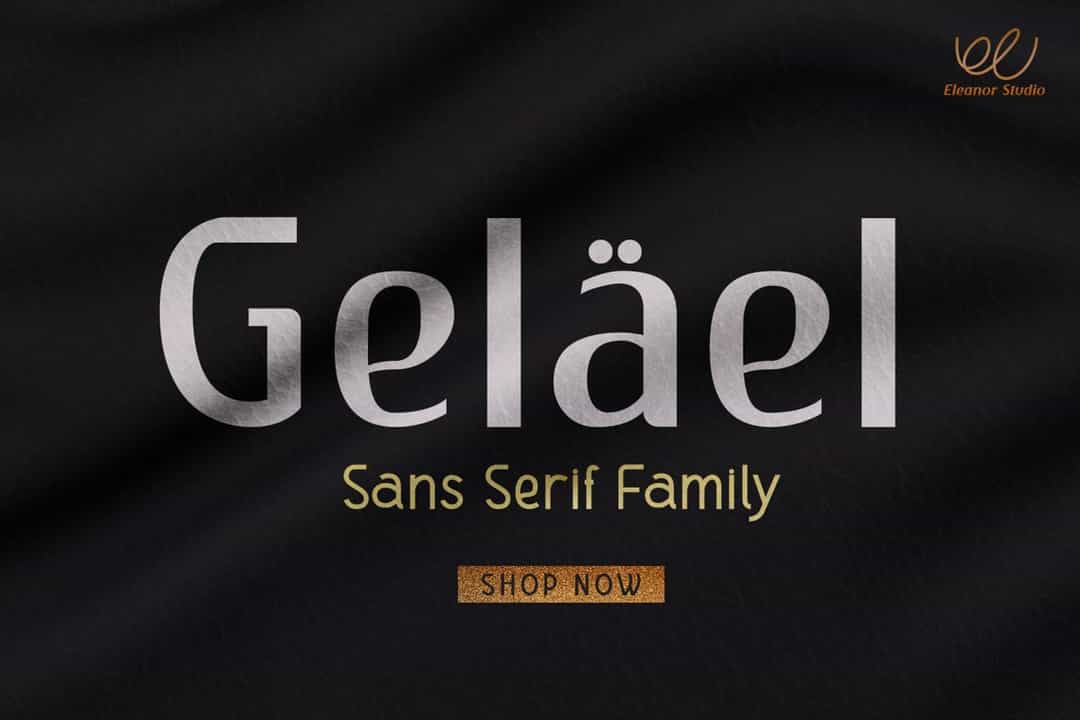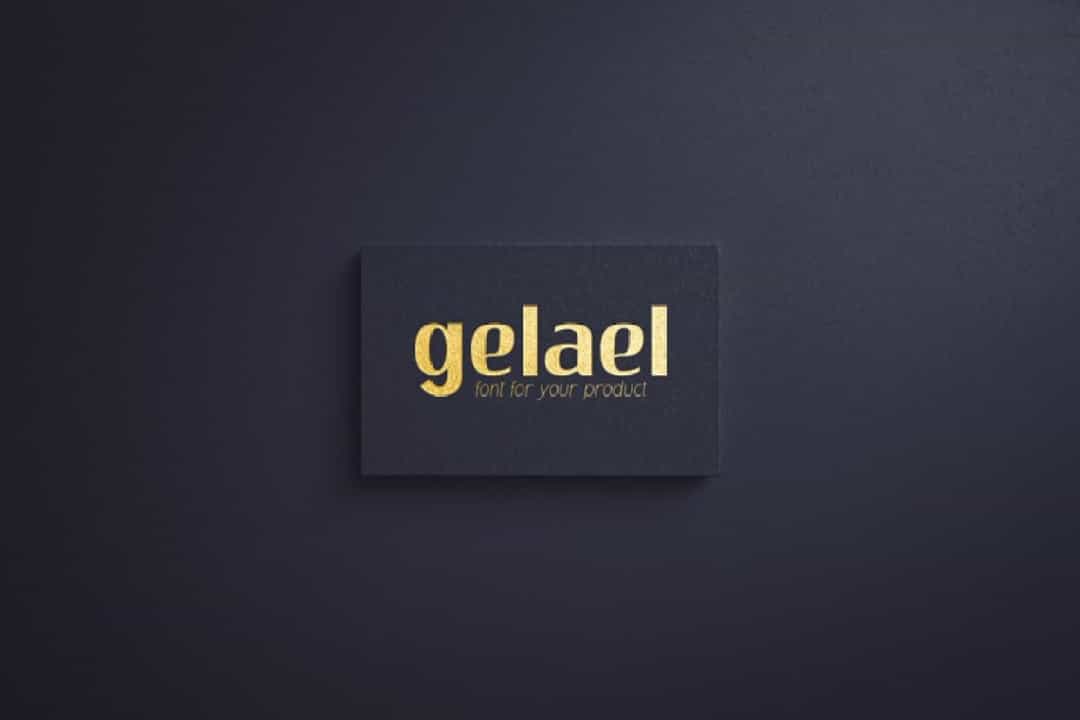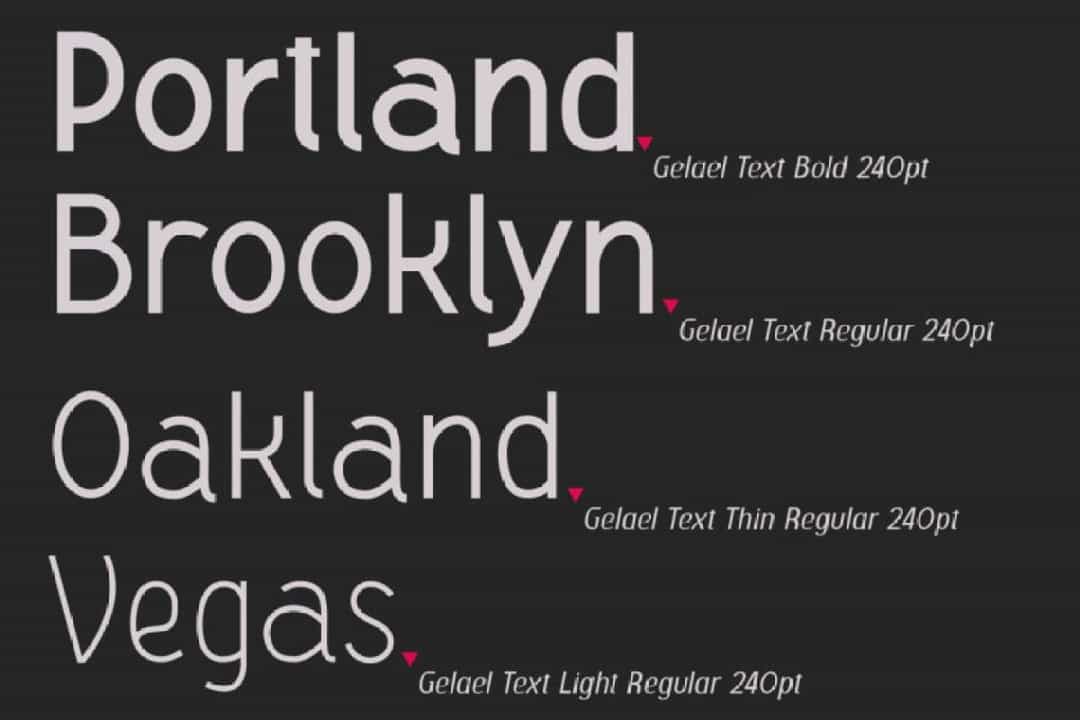
Gelael Sans Serif Font by Eleanor Studio is a contemporary, creative, and cute sans logo font with lower and upper case letters, numerals and punctuations, and other characters. Kiano can be used on labels, business cards and stationery, flyers, clothing, brochures, headlines, wedding invitations and wedding design, social media posts and ads, for special events, and many more.